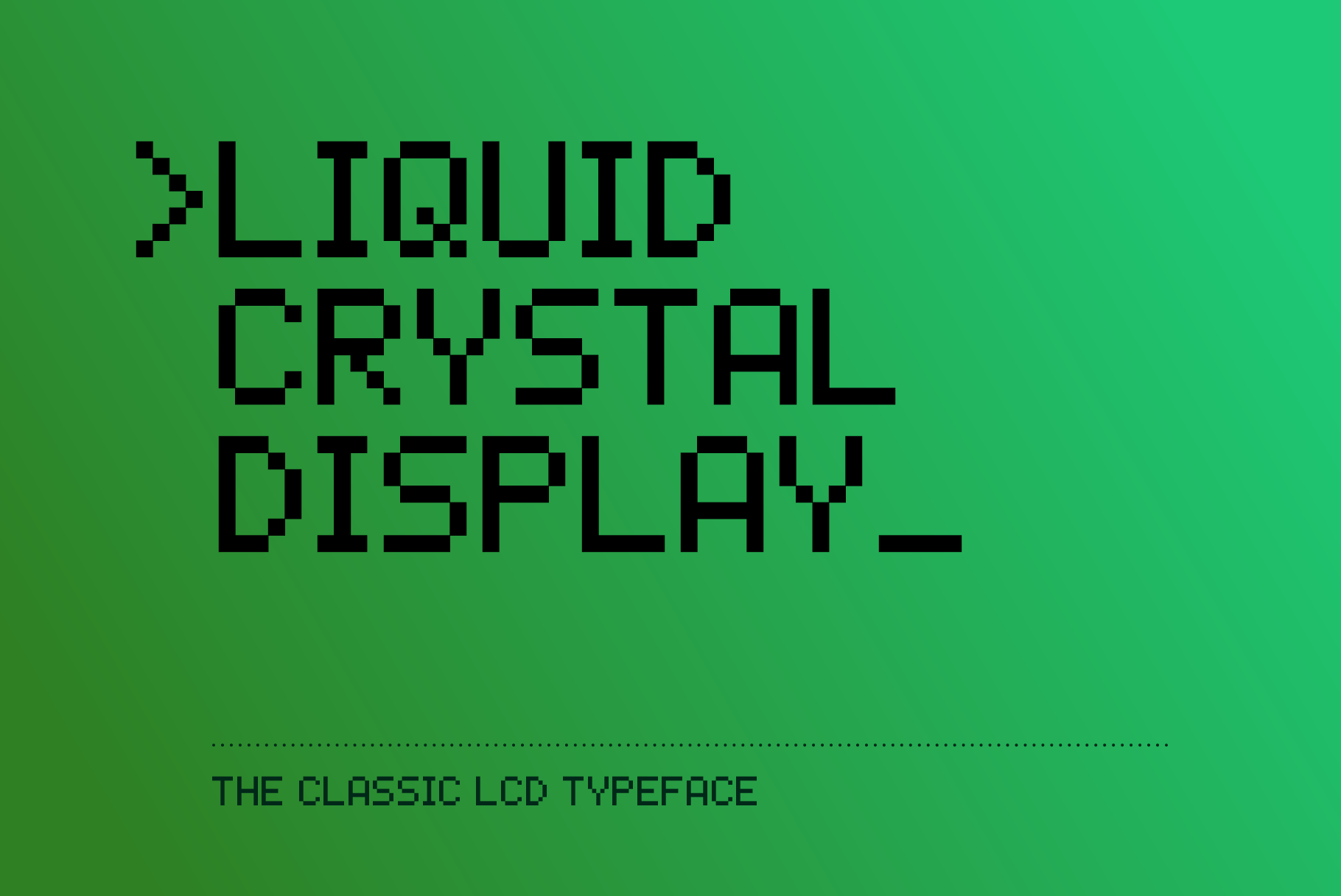
LCD Pixel font
SB Liquid is a digitisation of the 5x8 pixel typeface used on many Liquid Crystal Display panels, including the ubiquitous Hitachi HD44780. The font allows you to substitute the original monospaced characters for narrow or full width versions. It also contains full height alternative characters for accented characters.
- Each font contains 865 glyphs.
- Supports 94 languages.
- Includes an OpenType Stylistic Set to easily switch between monospaced and proportional spacing.
- Liquid Solid is optimised for use as a pixel font at 10px and multiples of 10px.